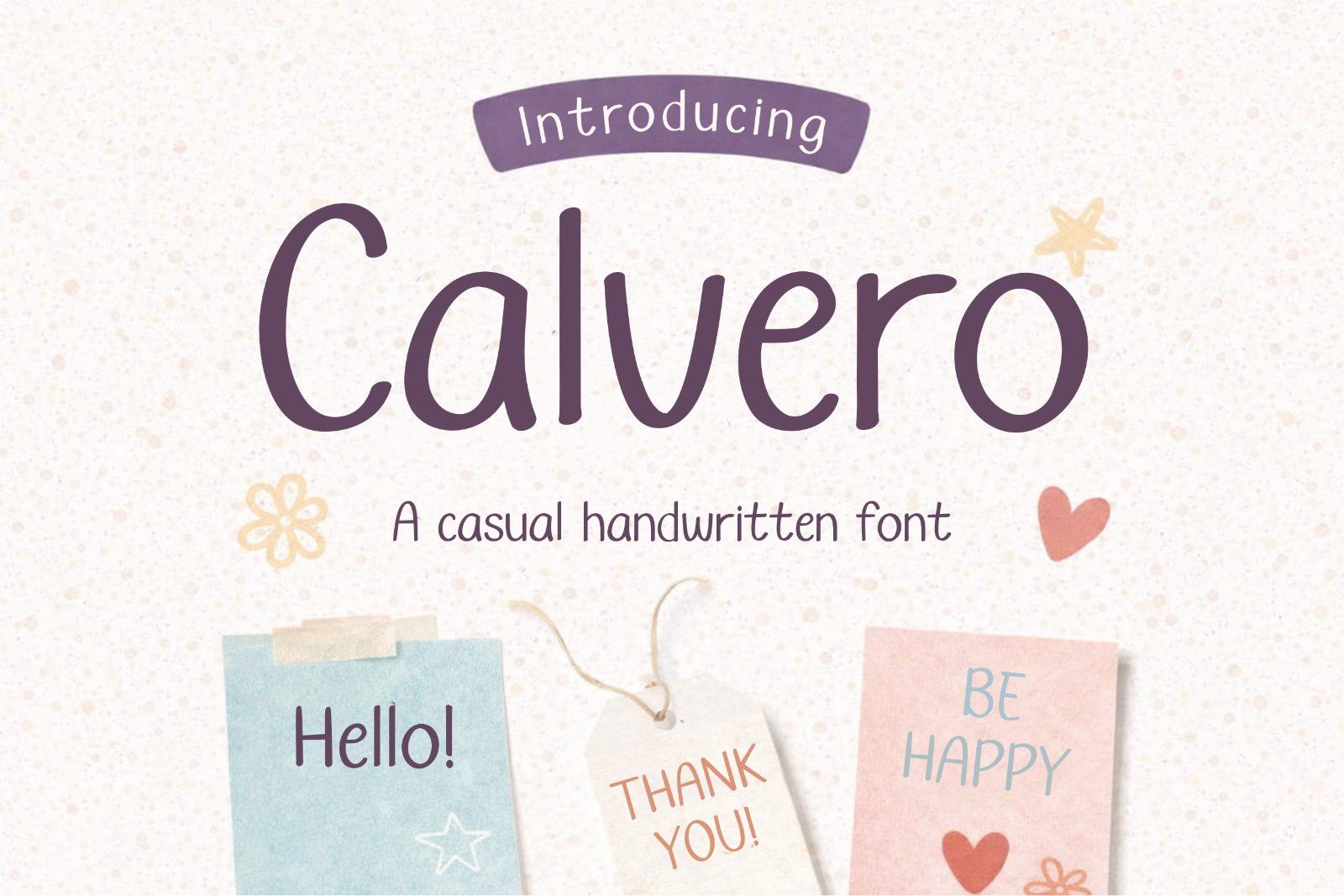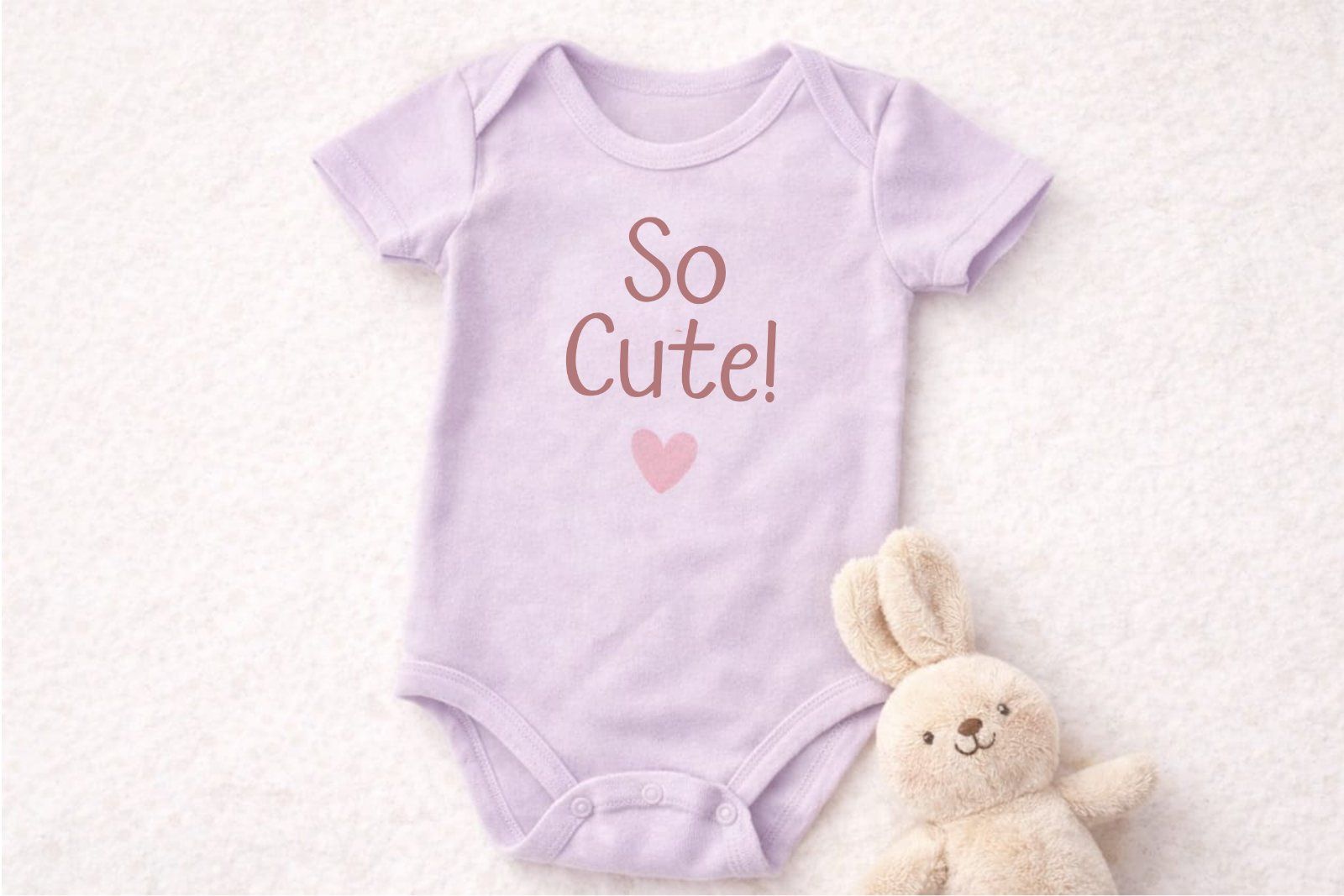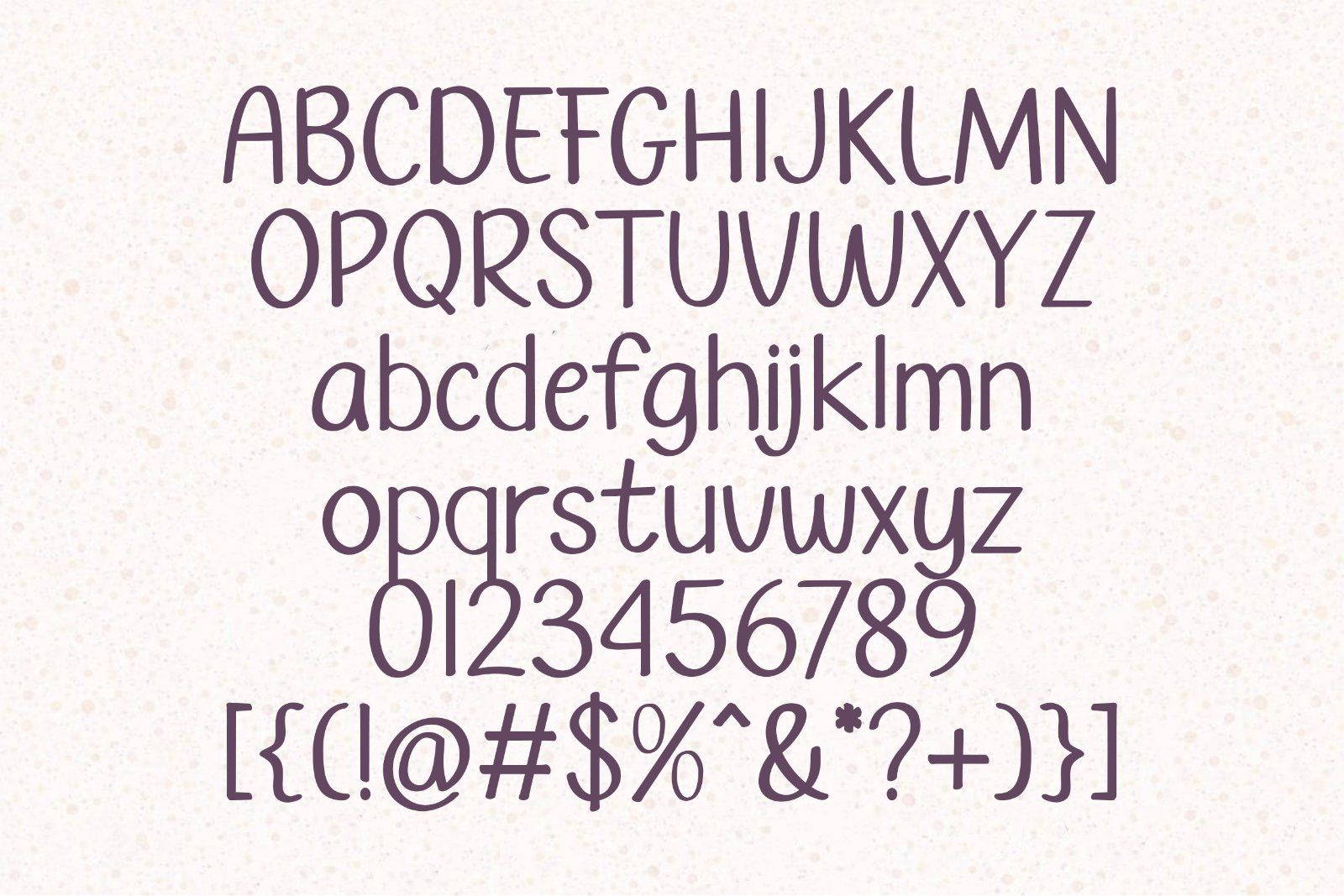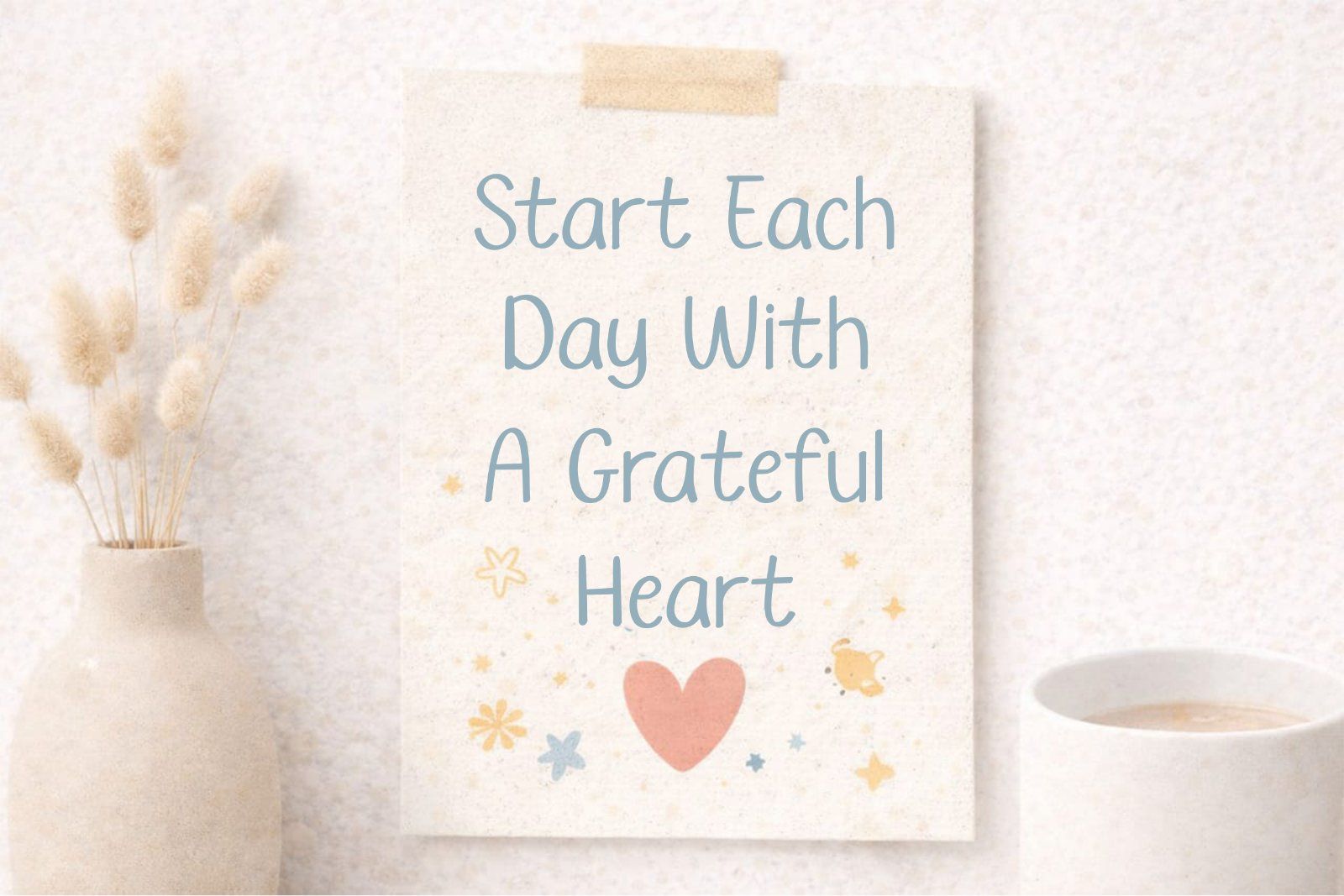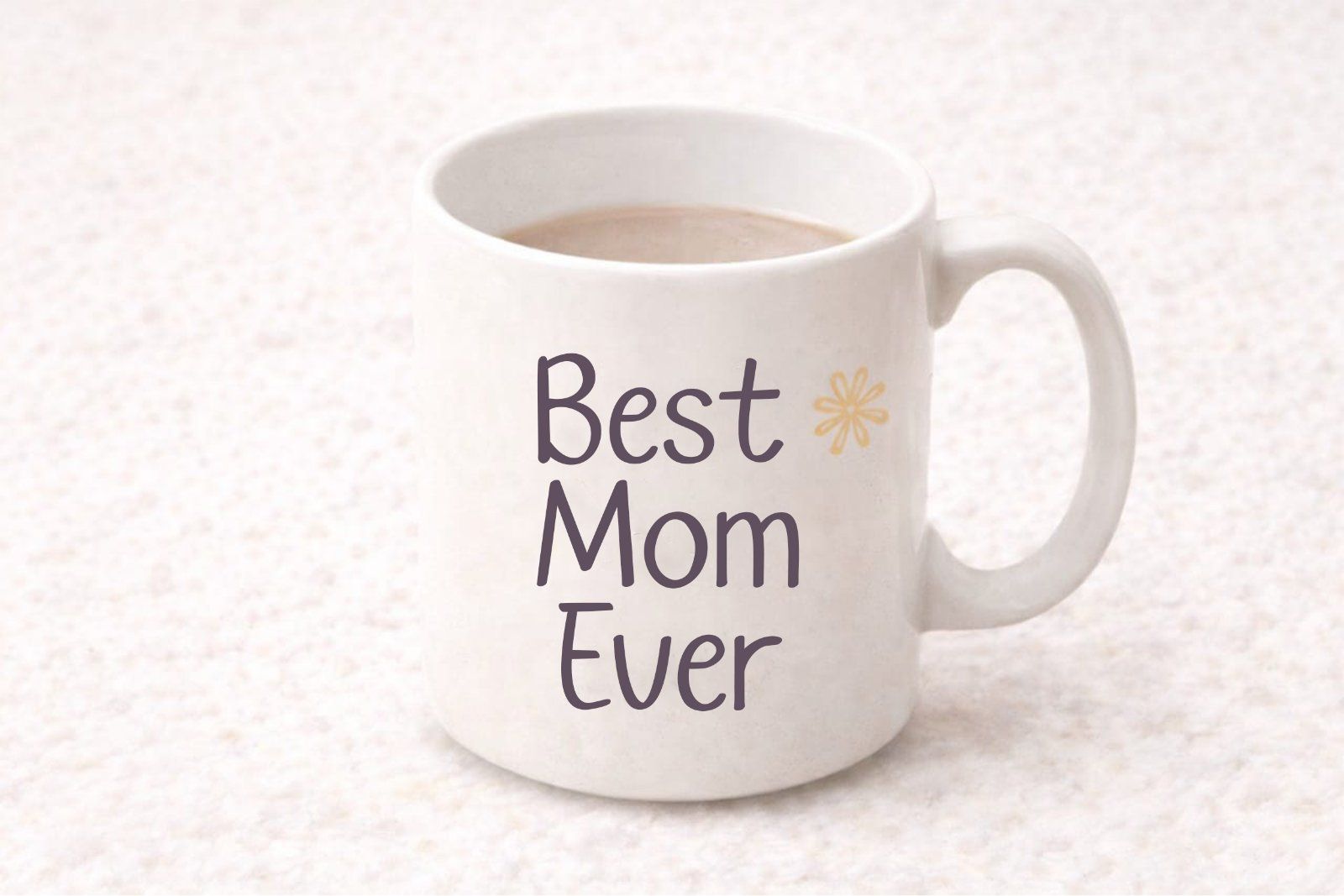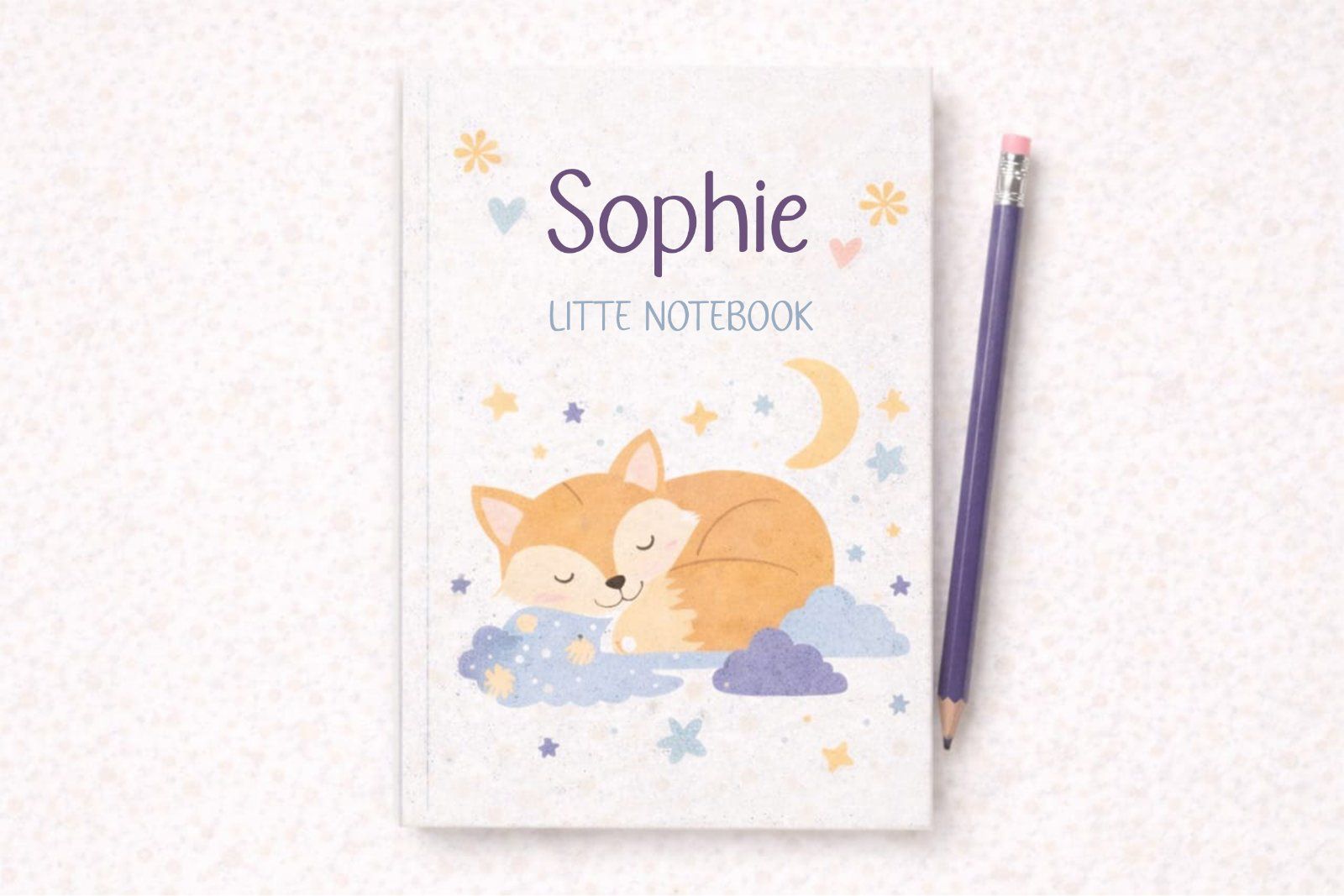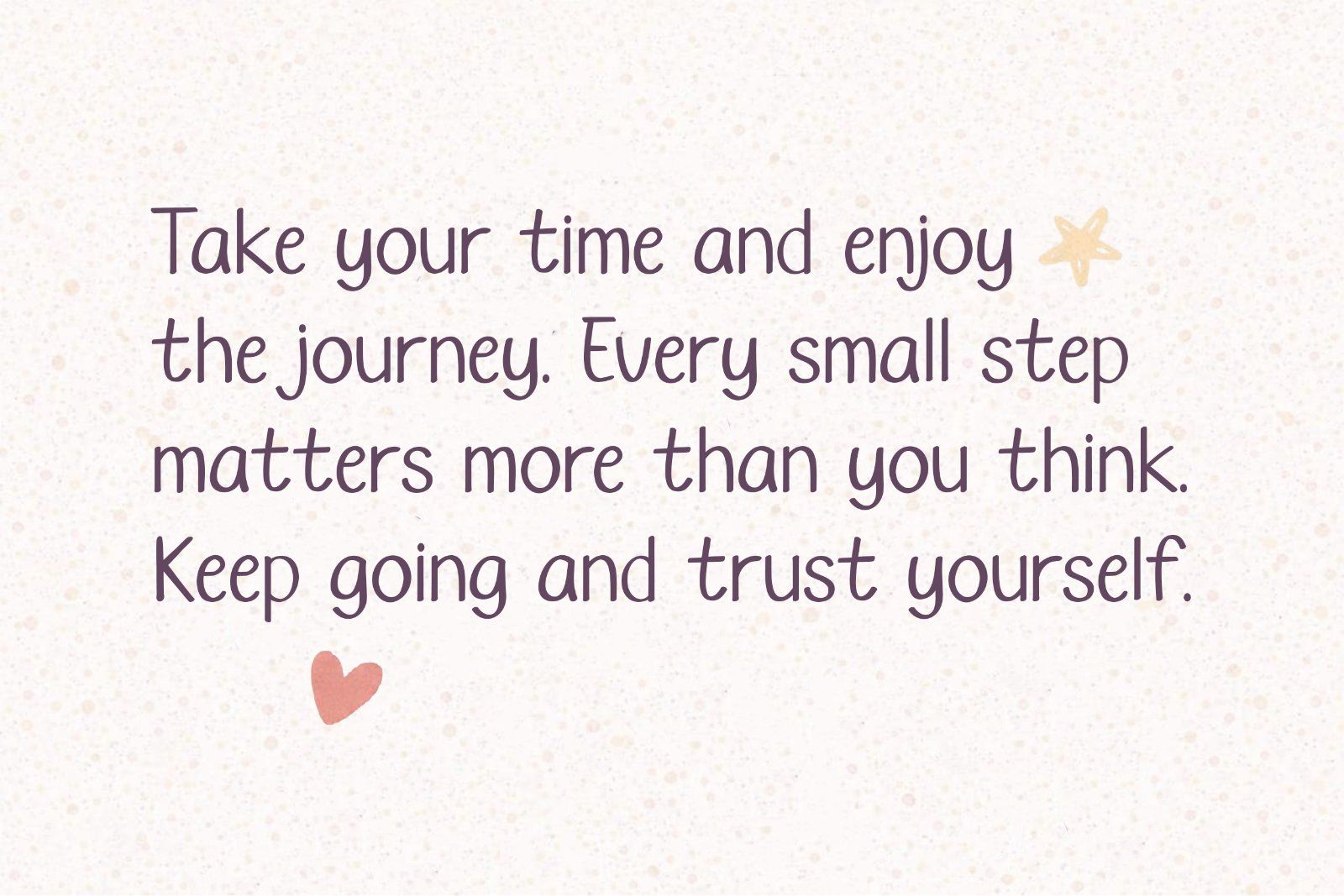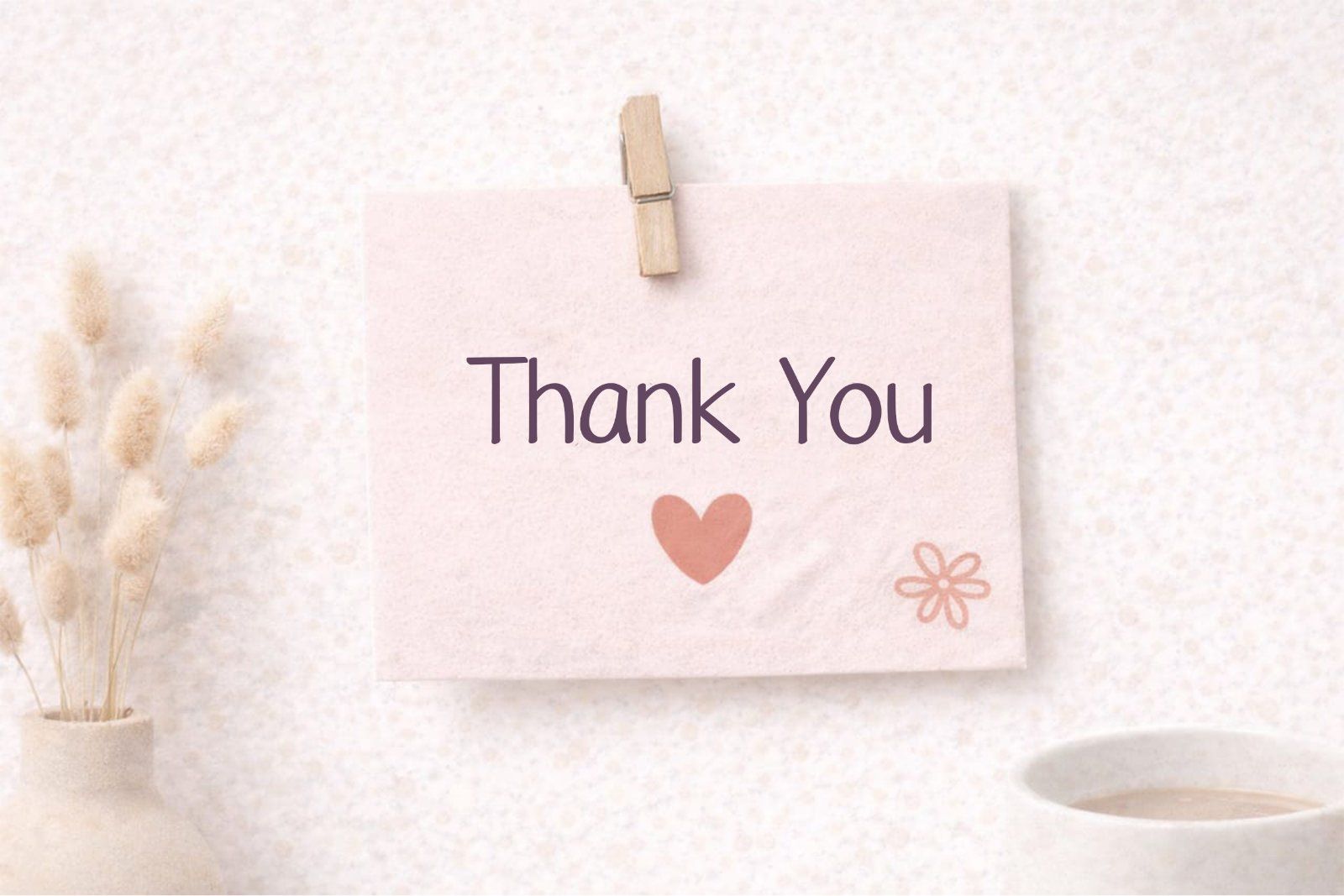
Calvero is a cute and casual handwritten font designed to bring warmth, fun, and personality into your creative projects. With its soft curves and playful character, Calvero is perfect for kids-related designs, crafts, and friendly branding.
Whether you're creating baby products, t-shirt designs, stickers, mugs, or Cricut projects, Calvero adds a charming and approachable feel that instantly stands out.
This font is carefully crafted to be clean, readable, and versatile—making it ideal for both personal and commercial use.
✨ Perfect for:
Kids & baby products
T-shirt & merch design
Stickers & Cricut projects
Nursery quotes & wall art
Branding & packaging
Social media graphics
✨ Features:
Uppercase & lowercase
Numbers & punctuation
Smooth handwritten style
Calvero is the perfect choice if you're looking for a font that feels friendly, cute, and effortlessly stylish.